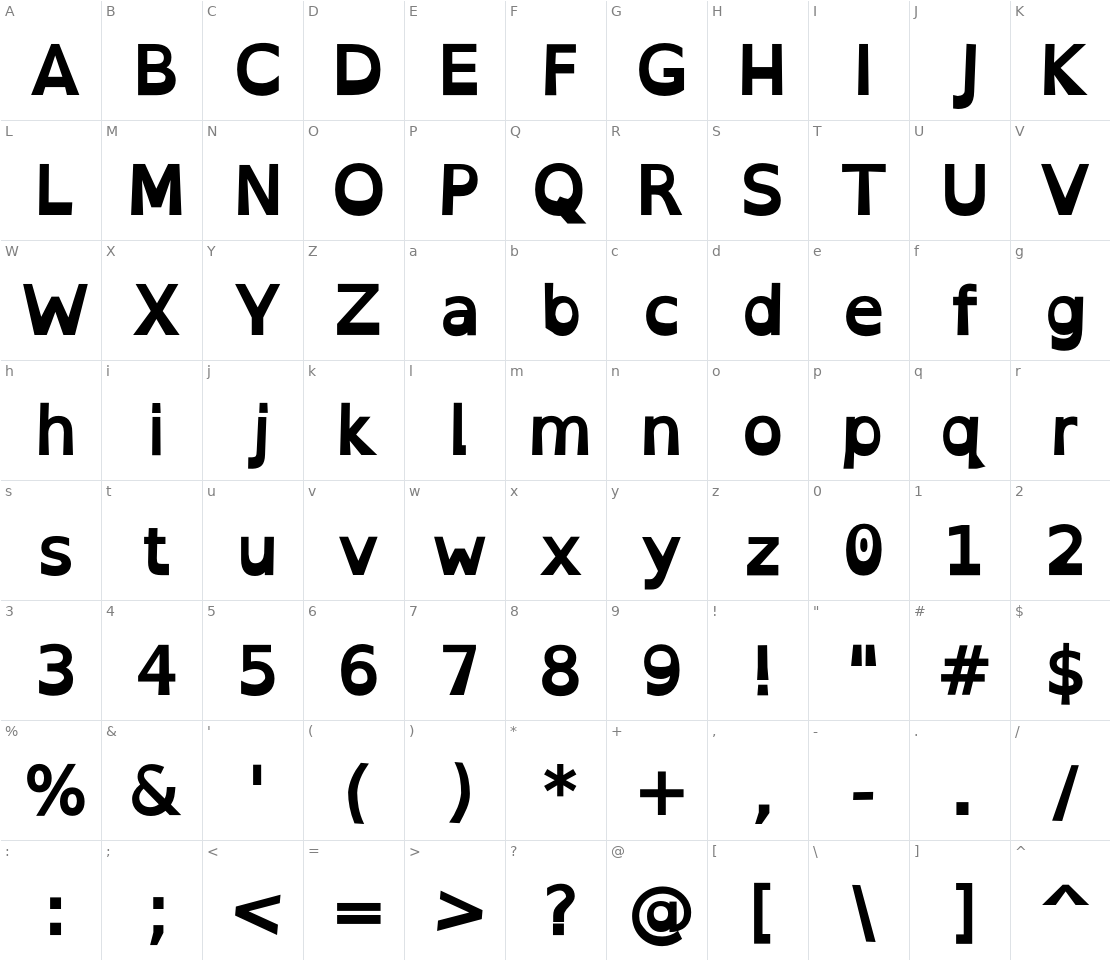
Open-Dyslexic
by Abelardo Gonzalez
Open-Dyslexic is a humanist sans-serif by Abelardo Gonzalez designed specifically to improve readability for people with dyslexia. The letterforms use heavier weighted bottoms to help anchor each character and reduce the visual confusion of letters rotating or flipping in the reader's mind. It's a functional body text face first and foremost, prioritizing legibility and accessibility over style, though its slightly quirky shapes give it a friendly, approachable presence on screen and in print.